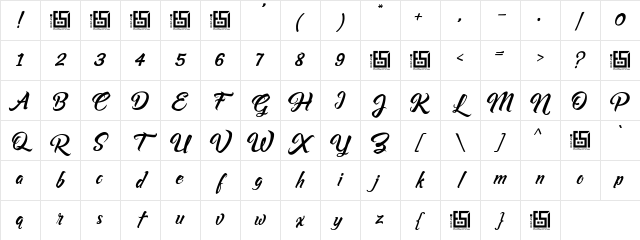
Asiyah Script Regular Free Font
Asiyah Script Regular
Foundry: Aktab Studio
Designer: Aktab Studio
Complete Asiyah Script Regular glyph index. Displaying only characters natively supported by Asiyah Script Regular font.
Design Context for Asiyah Script
Asiyah Script flows with the natural rhythm of handwritten lettering, making it ideal for designs that call for warmth and personal expression.
Font Pairing: Combine Asiyah Script with a simple geometric sans for maximum contrast - the tension between flowing curves and clean structure is a classic typographic pairing.
Pro Tip: Use Asiyah Script for short runs of text - names, titles, or taglines. Extended body copy in script faces tires the eye quickly.